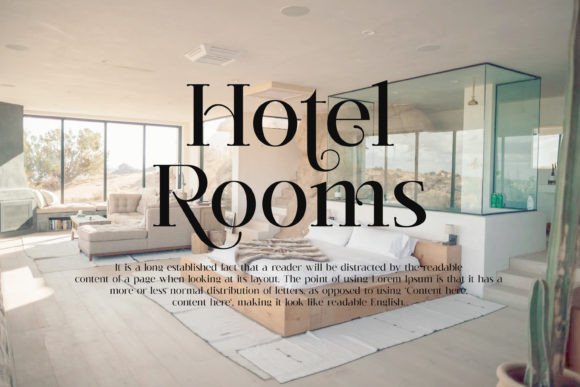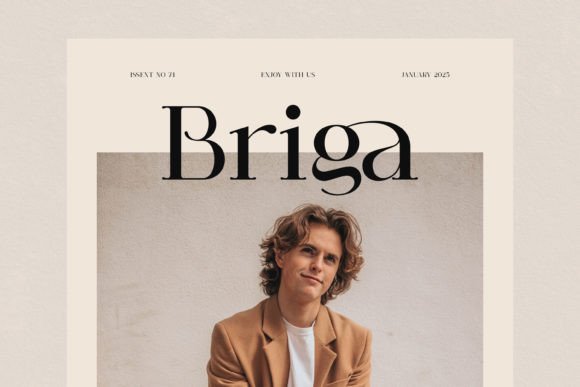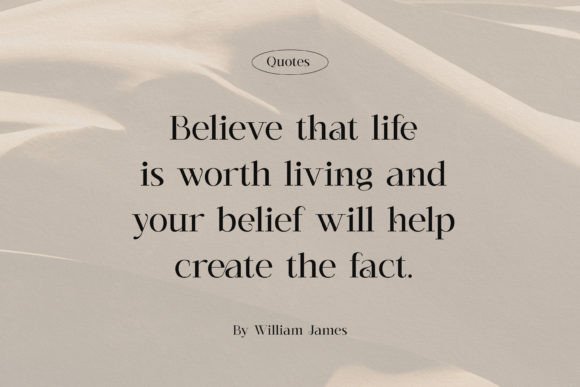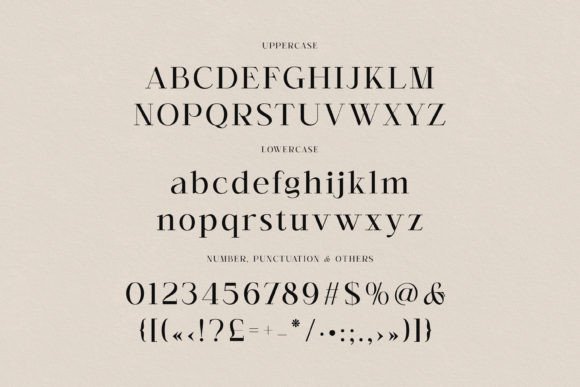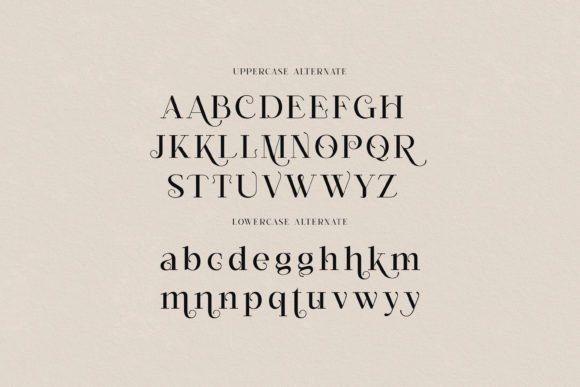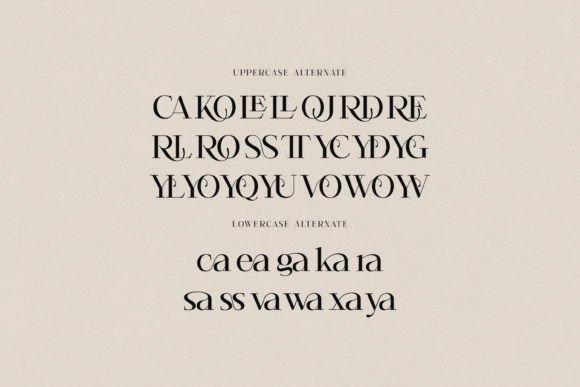
Introduction to Koglle Font
Koglle is a sleek and modern serif font that exudes confidence and sophistication.
Its clean, sharp lines and distinctive serifs give it a sense of power and strength The balanced letterforms and precise spacing create a harmonious flow of text, making Koglle perfect for editorial layouts, branding, and headlines that demand attention.